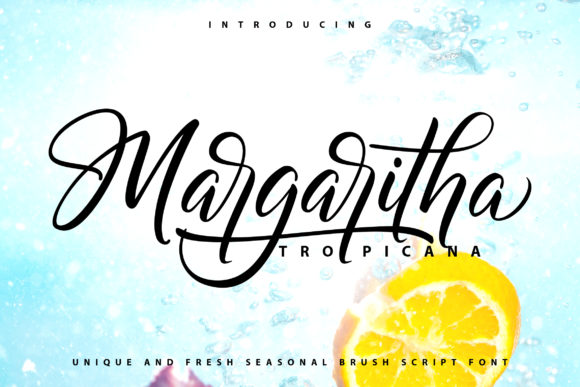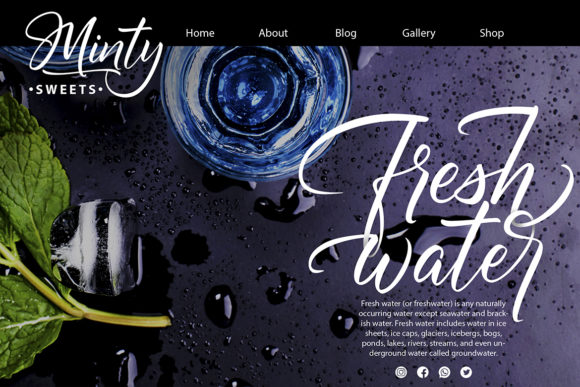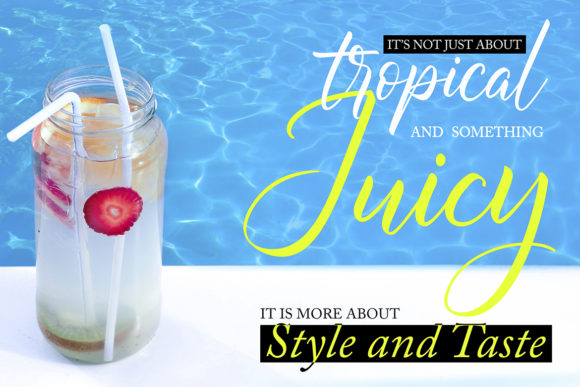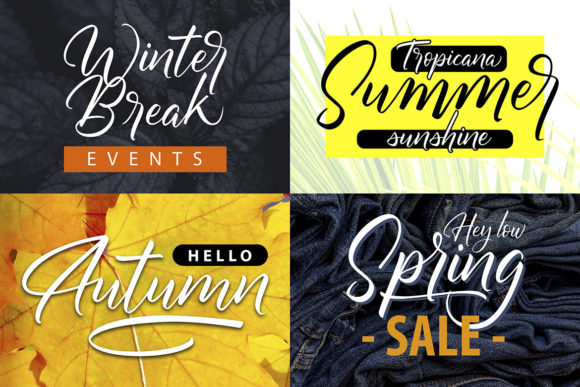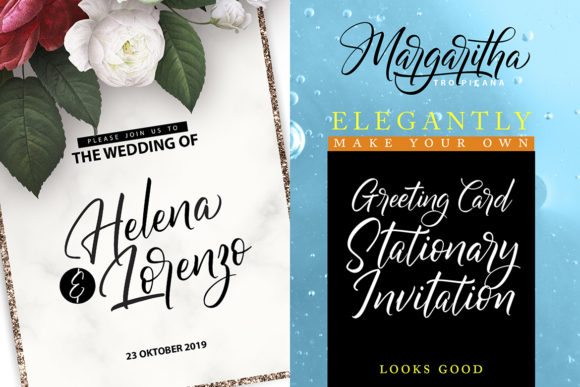
HomeScript FontsMargaritha Tropicana Font Script Fonts Margaritha Tropicana Font FacebookXPinterestWhatsApp Margaritha Tropicana Font Poster 2 Margaritha Tropicana Font Poster 3 Margaritha Tropicana Font Poster 4 Margaritha Tropicana Font Poster 5 About Margaritha Tropicana Font Margaritha Tropicana radiates elegance and authenticity in each of its boldly drawn letters. DOWNLOAD ON CREATIVE FABRICAThis font is sold and delivered by Creative Fabrica. Font Canyon may earn a commission if you buy through this link. People also explored Cow Font Teacher Vintage Font Stuffed French Font Happy Font Black Friday Font Gumdrop Font Creative Brave Font Rainbow Font Butterfly Holiday Font 339 0 TagsMargaritha Tropicana Font Previous articleManstora FontNext articleSilently Font LEAVE A REPLY Cancel reply Comment: Please enter your comment! Name:* Please enter your name here Email:* You have entered an incorrect email address! Please enter your email address here Website: Save my name, email, and website in this browser for the next time I comment. Personal Use Free The Fourth Avenue Personal Use Free Read more about this font Vanilla Whale Personal Use Free Read more about this font Unispace Personal Use Free Read more about this font Strasua Personal Use Free Read more about this font BLOG Best Fonts for T-Shirt Design – Top 2025 Picks In 2025, t-shirt design has become more than just fashion—it's a form of self-expression. Whether you're... Top 7 Google Fonts Alternatives for Faster and Privacy-Friendly Web Design (2025) To increase your work productivity, choose the most readable fonts. Using Fonts in Digital Marketing: Tips to Strengthen Your Brand Identity